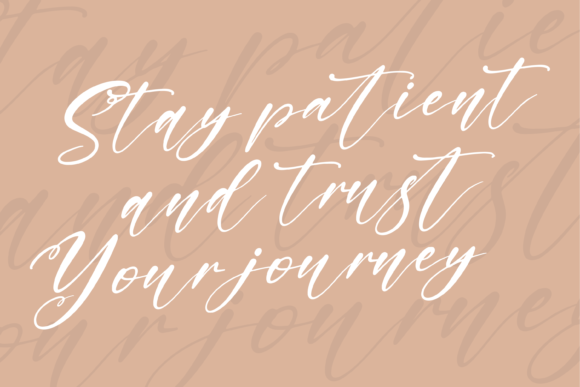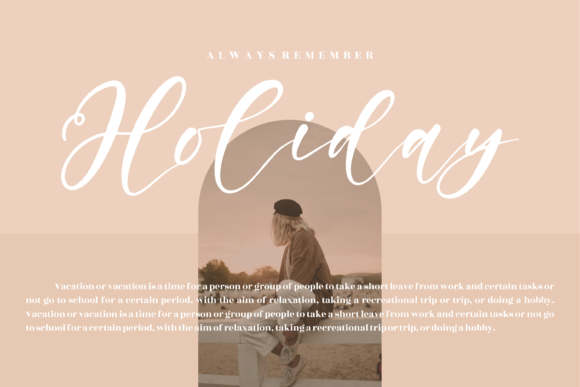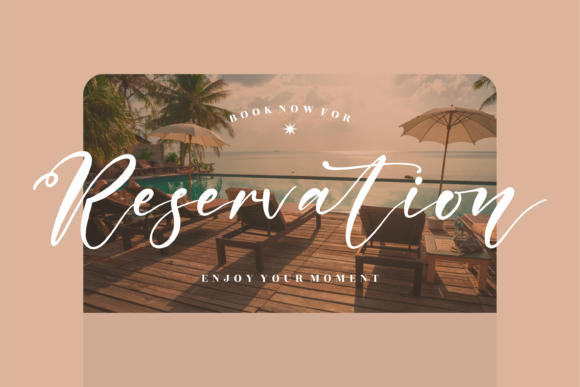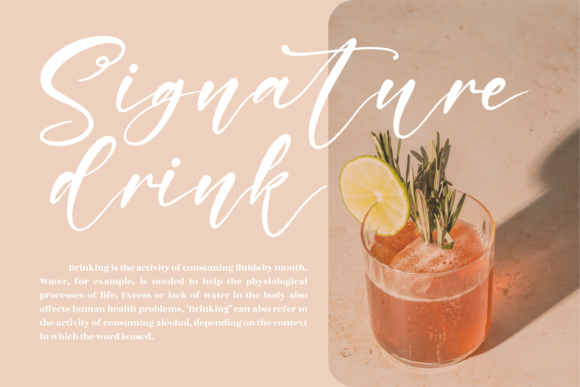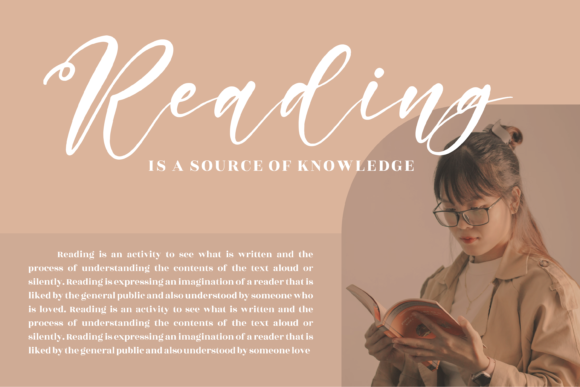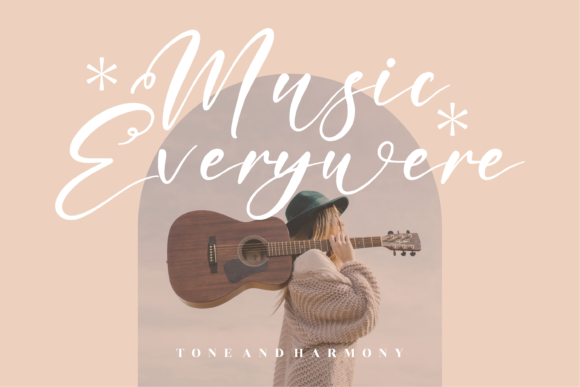
Introduction to Hamida Lovely Font
Have you ever stared at a blank canvas, trying to conjure up the perfect design for your creative project? The blank space can be intimidating, but what if you had the perfect tool to spark your creativity? That’s exactly what the Hamida Lovely Font can do for you. Its unique and timeless style is sure to captivate your audience and elevate your designs to the next level.
As a valuable resource for designers, the Hamida Lovely Font offers a high-quality solution for any creative endeavor. With its transparent background, you can easily combine it with other design elements to create a visually stunning effect. And the best part? You can download it for free, making it an accessible design resource for everyone.
Whether you’re a seasoned designer or just starting out, the Hamida Lovely Font is sure to become your go-to choice for any project that requires a touch of elegance and sophistication.
Key Features of Hamida Lovely Font
- High-quality design with a transparent background, ideal for creative projects and designs that require a clean aesthetic.
- Features a unique and elegant script style, perfect for adding a touch of sophistication to your designs.
- Includes a full character set, including uppercase and lowercase letters, numbers, and punctuation marks.
- Supports a wide range of languages, making it a versatile design resource for global audiences.
Honest Review: Hamida Lovely Font
I recently stumbled upon the Hamida Lovely Font, and I must say it’s a fantastic addition to any designer’s toolkit. This high-quality font is perfect for creative projects that require a touch of elegance and sophistication.
- ✨ The font’s intricate design and delicate curves make it ideal for headings and titles.
However, I did notice a few limitations with the Hamida Lovely Font.
- ⚠️ The font may not be suitable for large blocks of text, as the intricate design can become overwhelming.
- ⚠️ The font’s complexity may require additional design considerations to ensure proper legibility.
Overall, I’m impressed with the Hamida Lovely Font. It’s a great choice for designers who want to add a touch of sophistication to their creative projects. While it may have some limitations, the font’s high quality and versatility make it a valuable design resource.
Common Use Cases for Hamida Lovely Font
The Hamida Lovely Font is ideal for use in a variety of creative projects, including blog posts, social media graphics, and business presentations. Its high-quality design and transparent background make it a versatile and useful design resource.